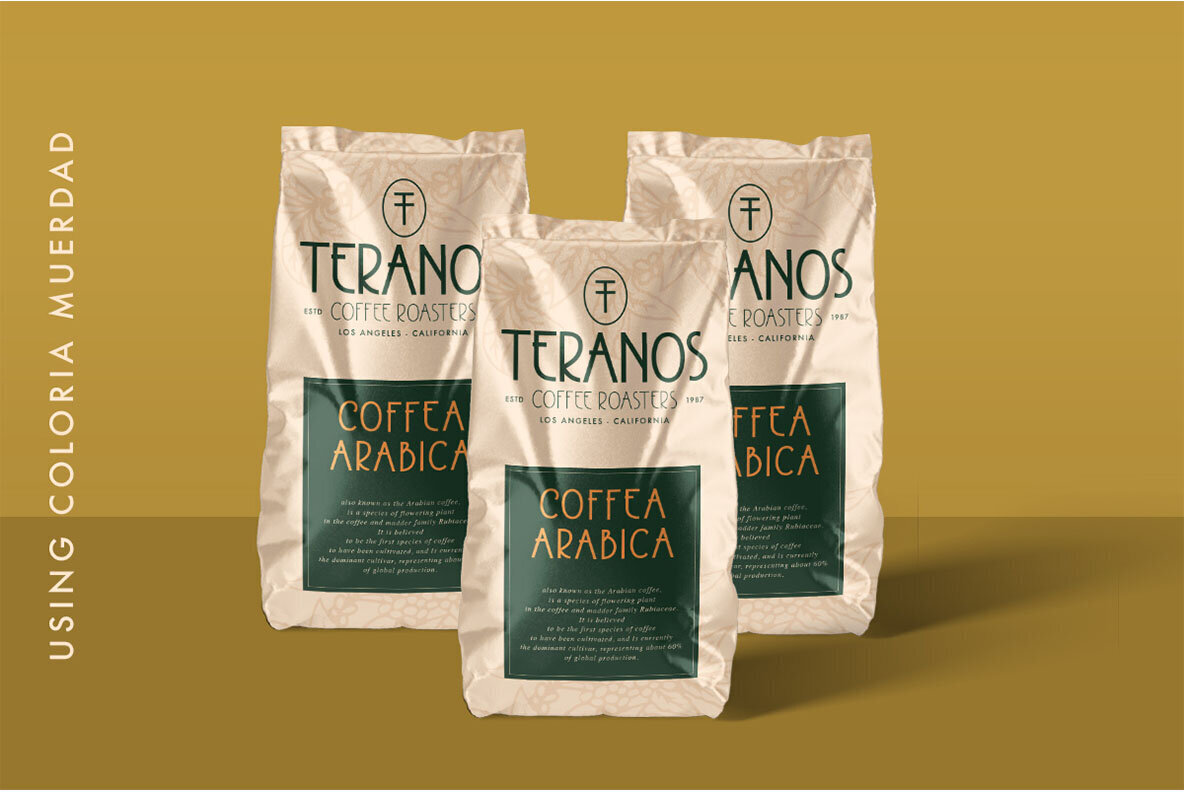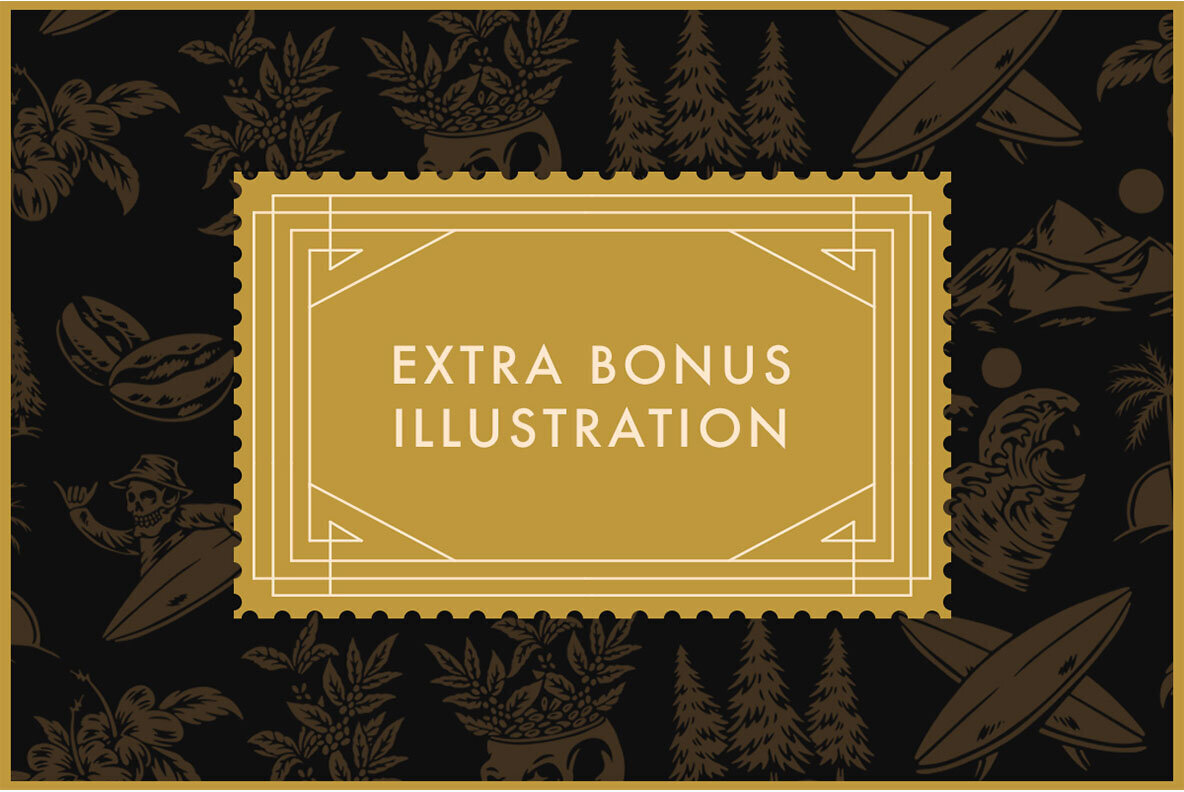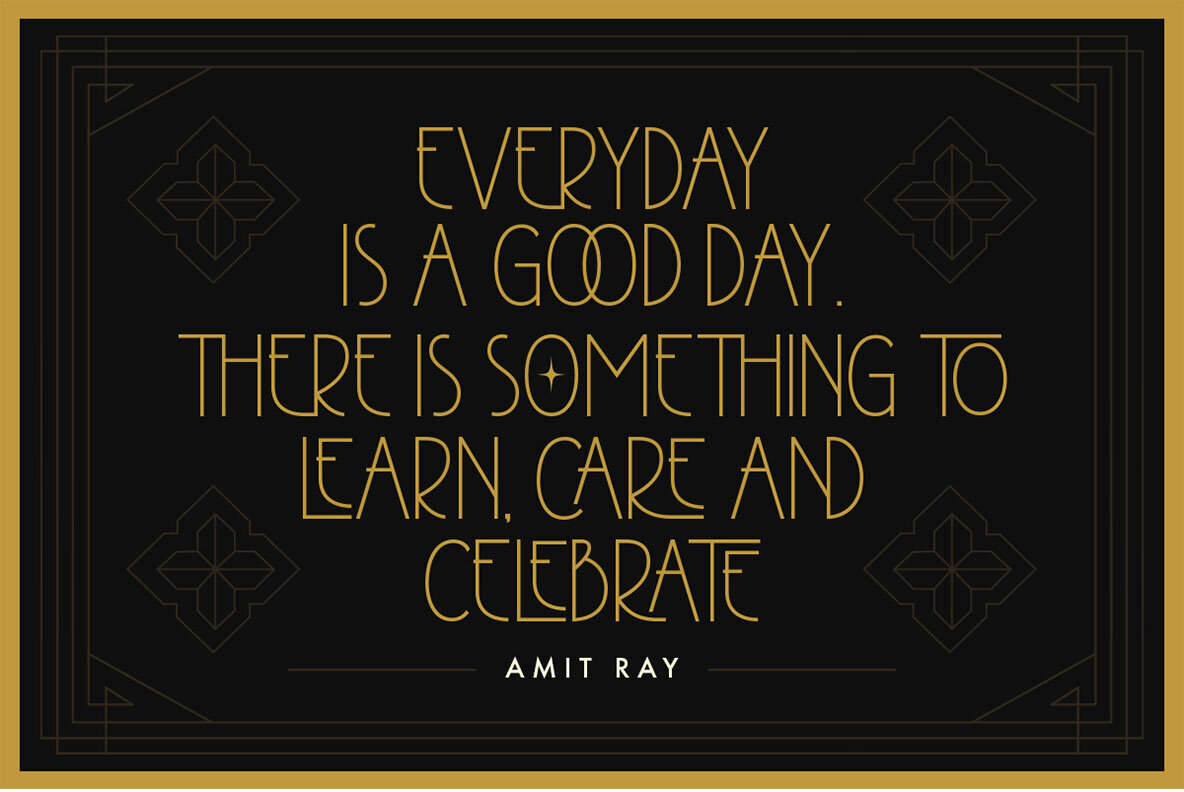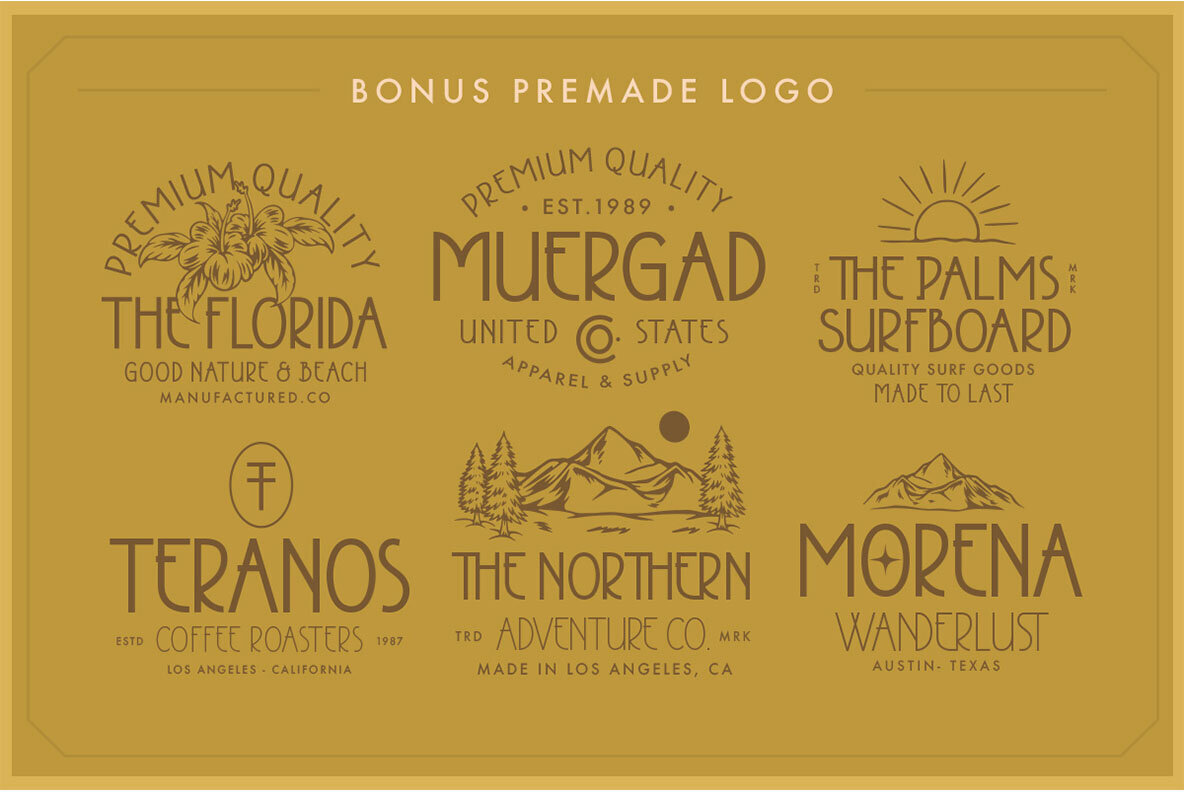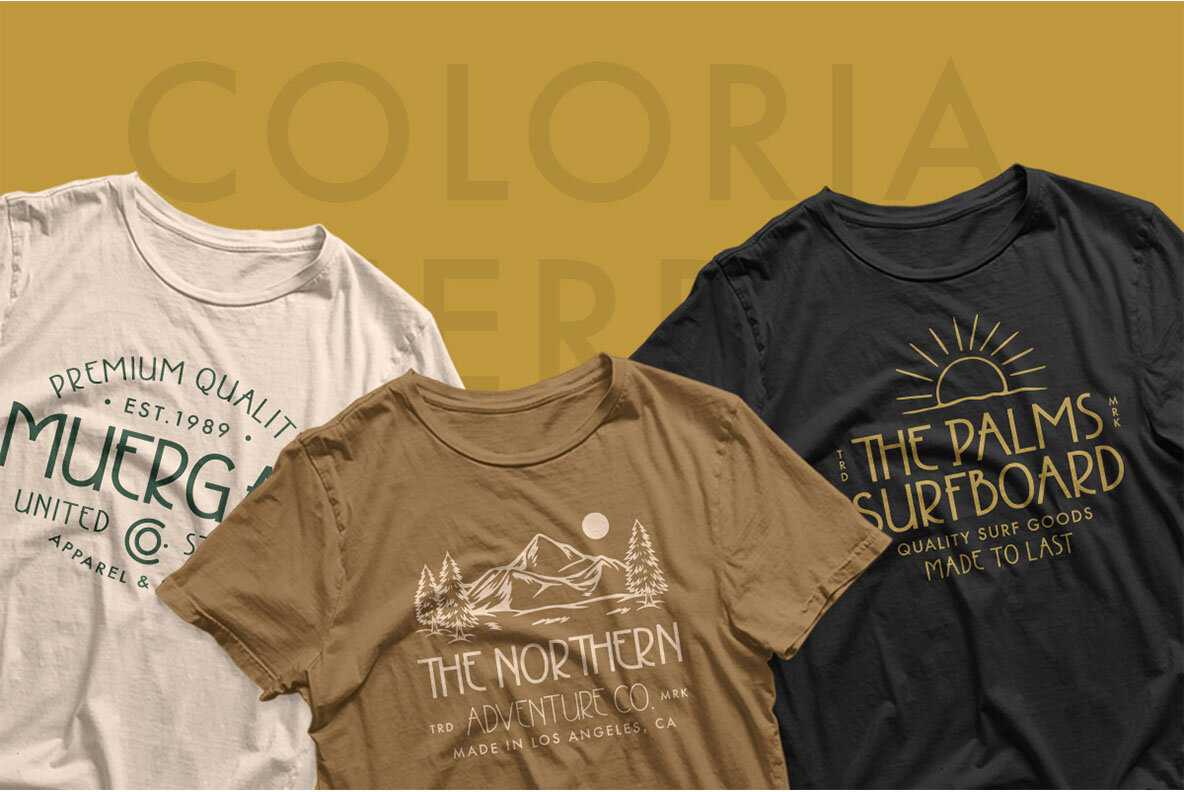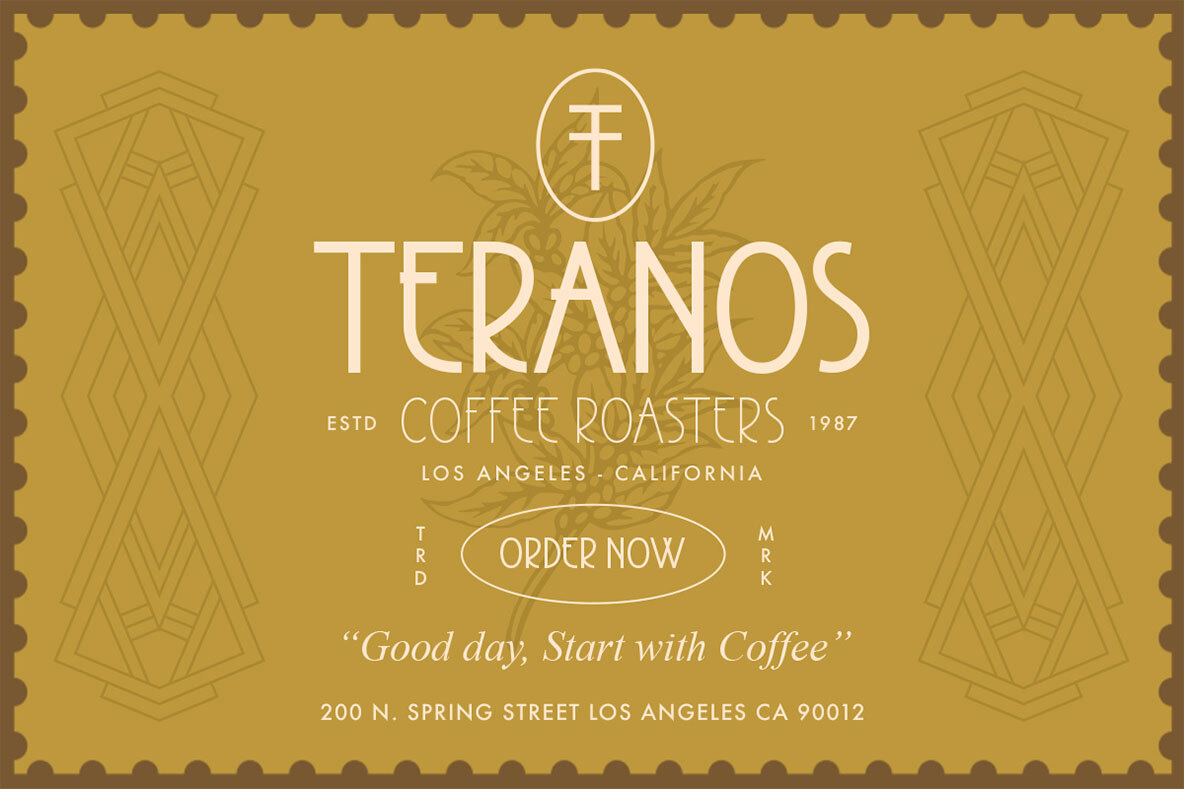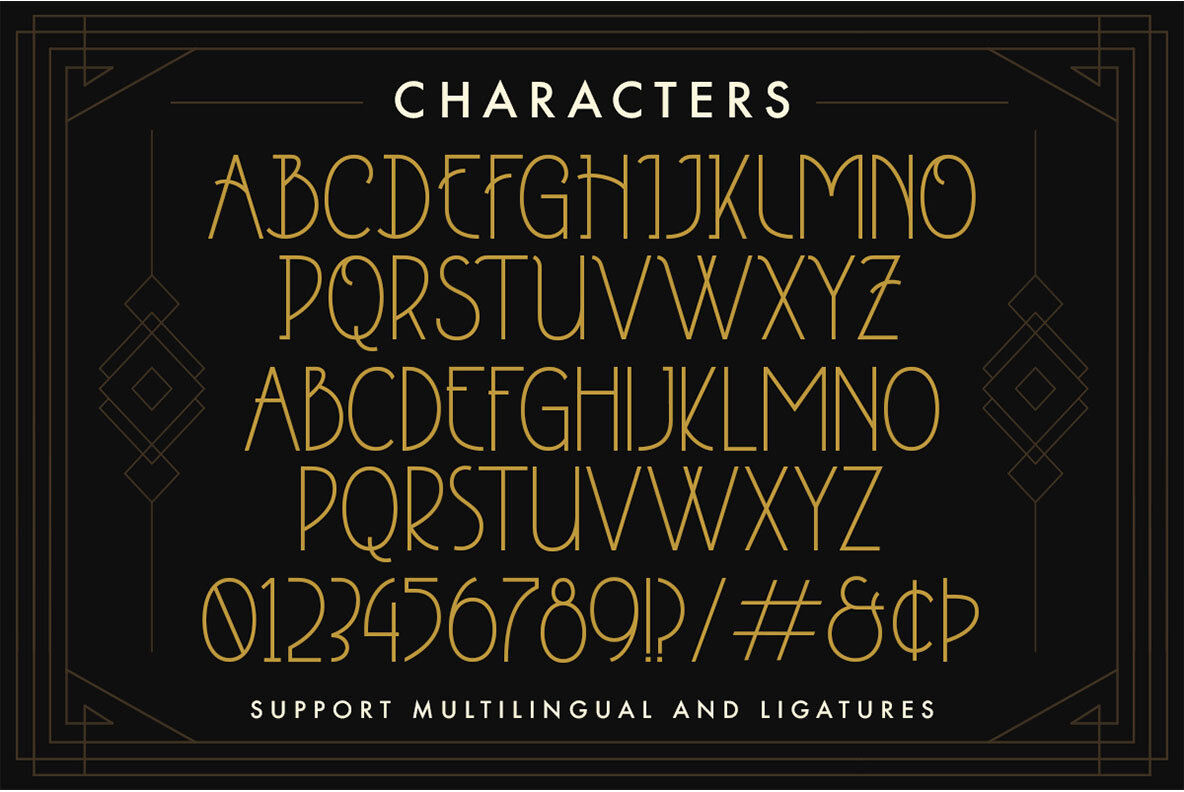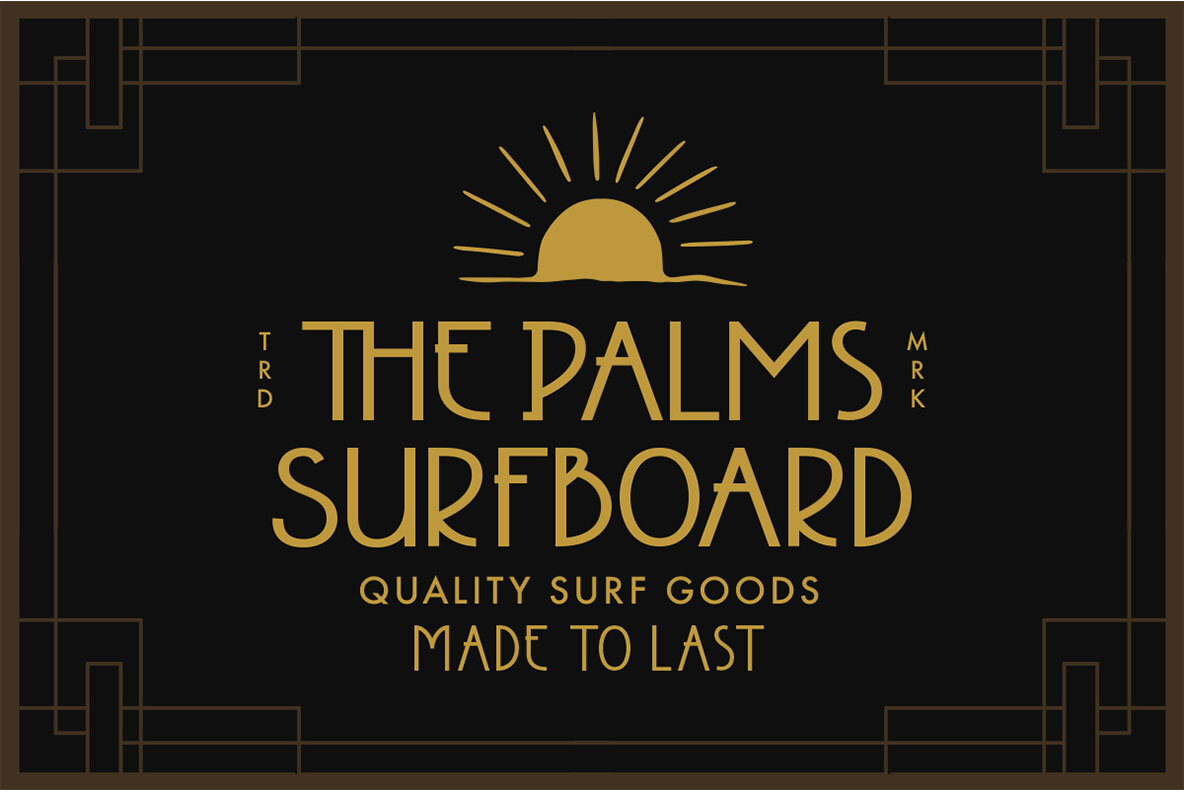
Coloria Muergad Font
Coloria Muergad is a modern typeface that can be used in any project with an old-fashioned or futuristic feel. It comes complete with bonus illustrations to give your designs even more personality!
- Uppercase and Lowercase
- Numbers and Punctuation
- Alternates and Ligatures